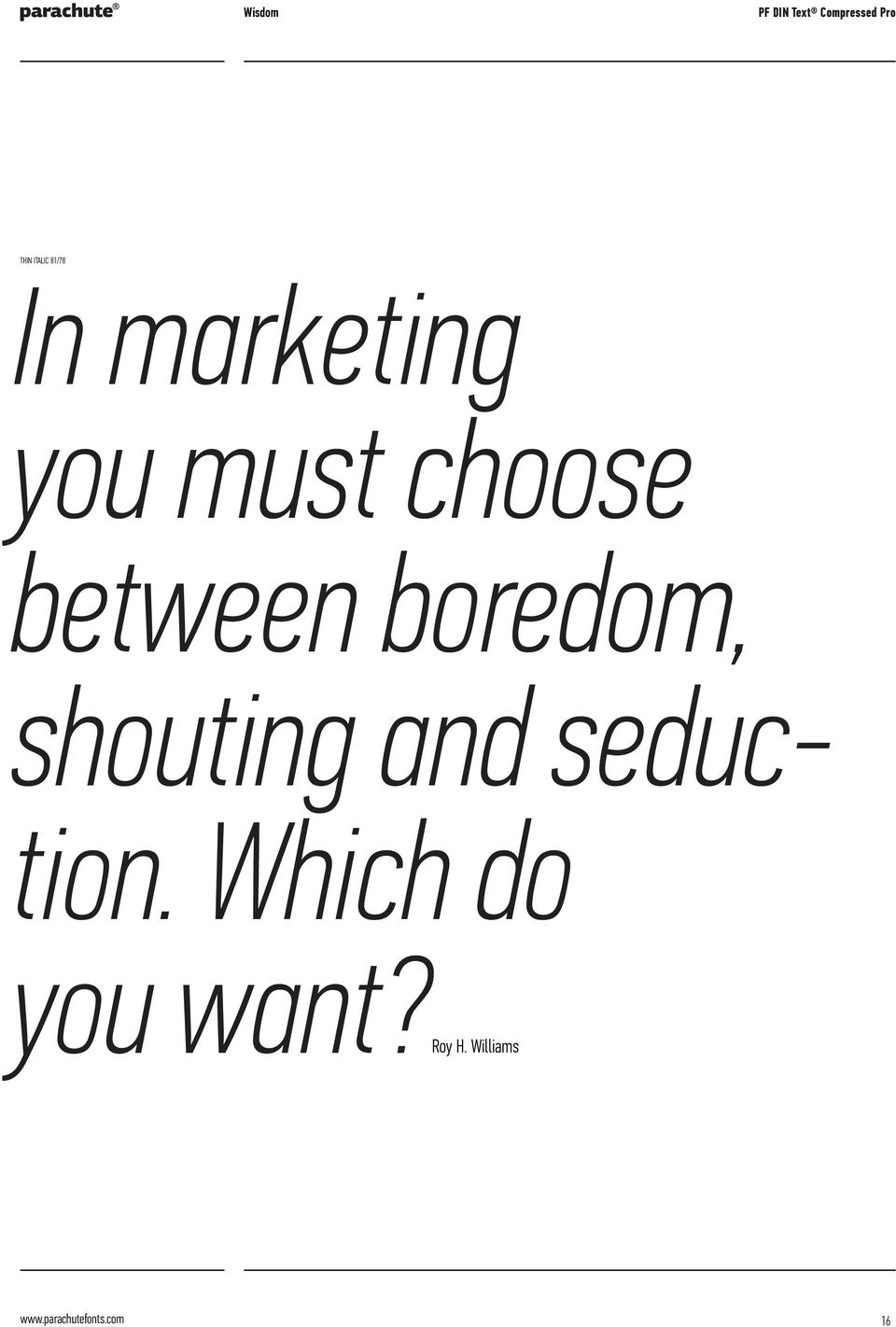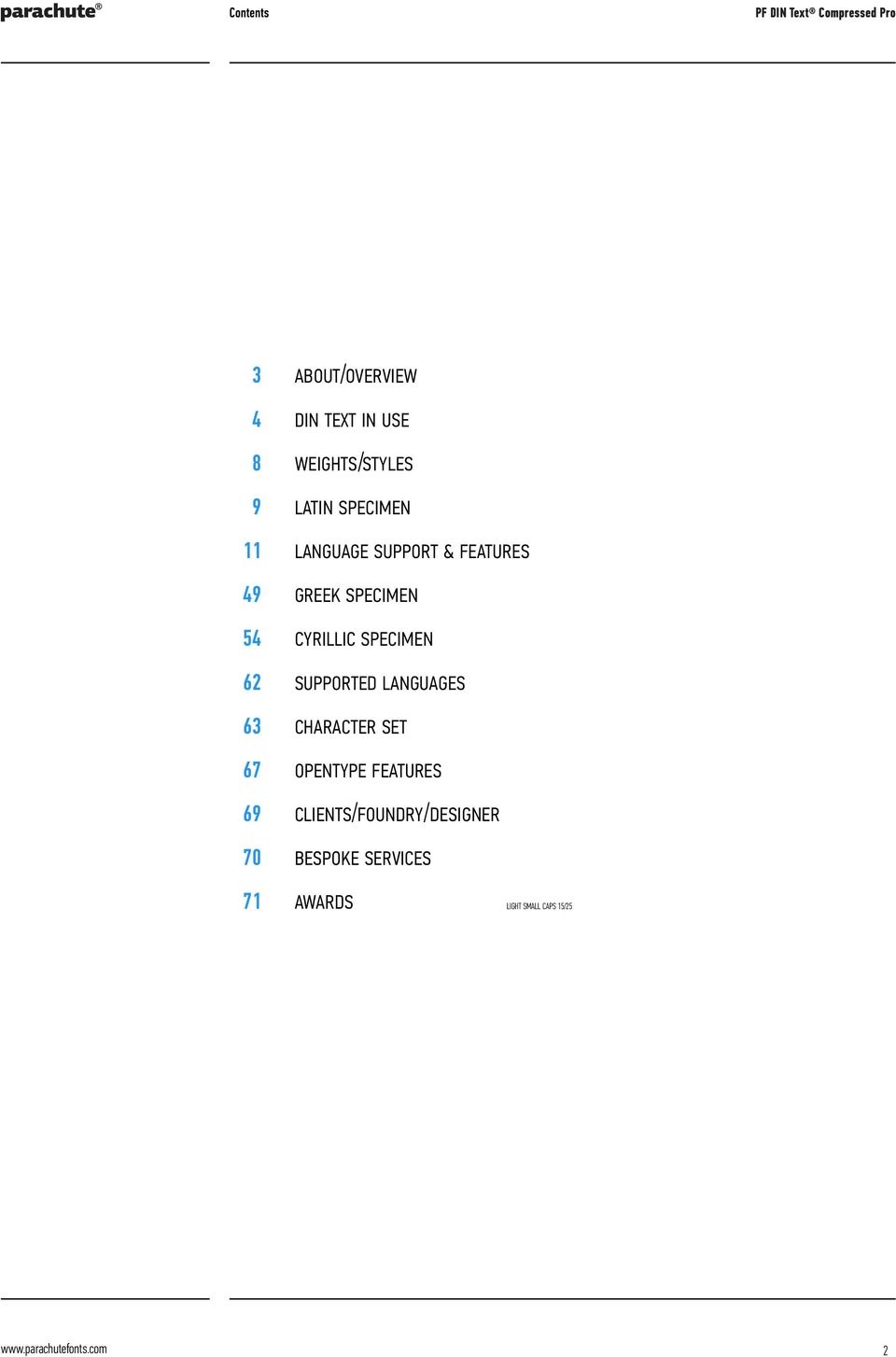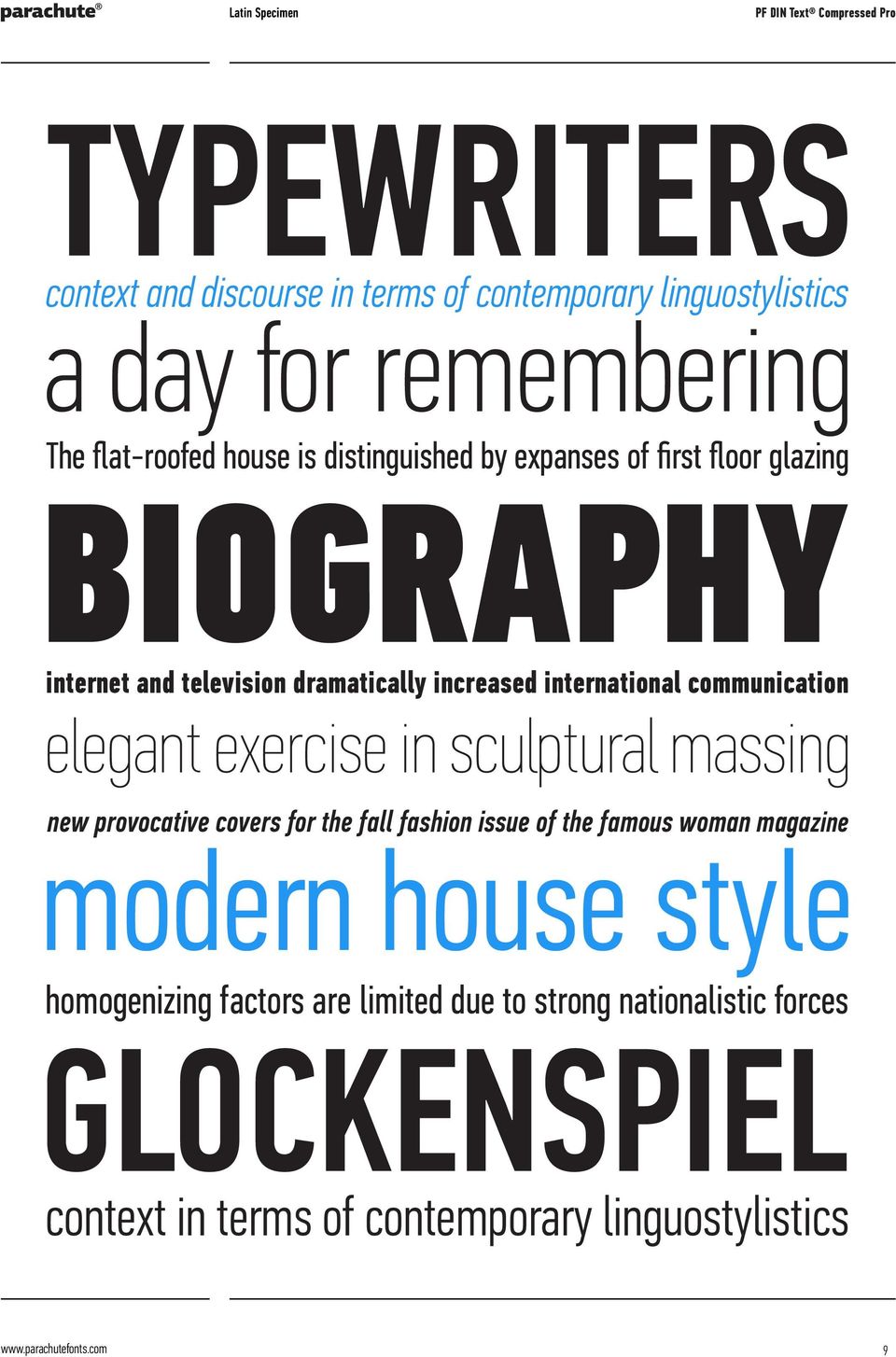
Εclectic Fonts For Living Brands. PF DIN Text Compressed Pro version 3.0
1 Εclectic Fonts For Living Brands version 3.0
3 Overview ABOUT The purpose of the original DIN 1451 standard was to lay down a style of lettering which is timeless and easily legible. Unfortunately, these early letters lacked elegance and were not properly designed for typographic applications. Ever since its first publication in the 1930s, several type foundries adopted the original designs for digital photocomposition. By early 2000, it became apparent that the existing DIN-based fonts (which were limited to a few Latin-only styles) did not fulfill the ever-increasing demand for additional styles as well as support for languages other than Latin. Parachute was set out to fill this gap by introducing the PF DIN Text type system in 2002, which ever since has become one of the most functional, reliable, convenient and sophisticated DIN series. Based on the original standards, it was specifically designed to fit typographic requirements. Its letterforms divert from the stiff geometric structure of the original and introduce instead elements which are familiar, softer and easier to read.it was completed in 2002 as a group of 4 families which included condensed and compressed as well as a special display version. In 2010, Parachute released 4 new families DIN Monospace, DIN Stencil, DIN Text Arabic and DIN Text Universal. Altogether, the Parachute DIN series is a set of 8 original superfamilies with a total of 102 weights. With its vast array of weights, the extended language support, but most of all its meticulous and elaborate design, it has been proved valuable to numerous design agencies. Ever since its first release, it has been used around the world in diverse editorial, packaging, branding and advertising campaigns. It was quoted by Publish magazine as being an overkill series for complex corporate identity projects. The latest compressed version 3.o includes new glyphs such as the German capital sharp s, Russian rouble, Ukrainian Hryvnia, Azeri and Kazakh letterforms, kerning and enhanced language support in all family variations. The whole PF DIN Text type system includes 51 weights from Hairline to Extra Black including true-italics. Additionally, every font in the Pro series is powered by 270 very useful symbols for packaging, environmental graphics, signage, transportation, computing and fabric care. DIN Text is a registered trademark of Parachute FORMAT Desktop (otf) / Web (woff, eot, svg) LANGUAGES/SCRIPTS Latin Cyrillic Greek Eastern European Turkish Baltic GLYPHS 1246 /font PRO FEATURES Small Caps Standard f-ligatures Discretionary Ligatures Oldstyle Figures (tabular/proportional) Lining Figures (tabular/proportional Superiors (numerals/lowercase letters) Scientific Inferiors Fractions Ordinals Stylistic Alternates Numerators / Denominators Capital Spacing Stylistic Set 2 Ornaments / Various Symbols WEIGHTS/STYLES Hairline Extra Thin/Extra Thin Italic Thin/Thin Italic Light/Light Italic Regular/Italic Medium/Medium Italic Bold/Bold Italic Black/ Black Italic Extra Black/Extra Black Italic PUBLISHED 2002 DESIGNED BY Panos Vassiliou 3
5 an overkill series for complex corporate identity projects HAIRLINE 110/98 Henk Gianotten Publish Magazine number 4, 2009 Netherlands 5
7 a functional Stylistic Alternates 7
8 Weights / Styles LATIN CYRILLIC GREEK DIN Text Compressed Pro Hairline DIN Text Compressed Pro Extra Thin Italic DIN Text Compressed Pro Thin Italic DIN Text Compressed Pro Light Italic SHOWN WITH ALTERNATE 2-STOREY a DIN Text Compressed Pro Regular DIN Text Compressed Pro Italic SHOWN WITH ALTERNATE 2-STOREY a DIN Text Compressed Pro Medium Italic DIN Text Compressed Pro Bold Italic DIN Text Compressed Pro Black Italic SHOWN WITH ALTERNATE 2-STOREY a DIN Text Compressed Pro Extra Black Italic 8